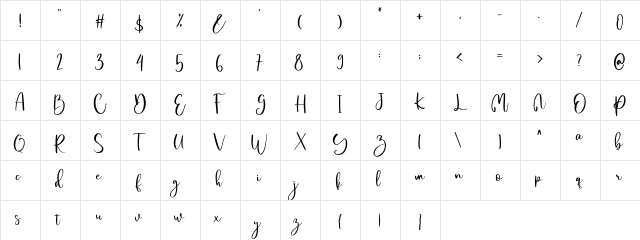
Maisha Regular
| Foundry | DDLab |
| Designer | Ferdiansyah |
Design Context for Maisha Typeface
Maisha is a composed and adaptable typeface that performs quietly and consistently across a wide range of design contexts.